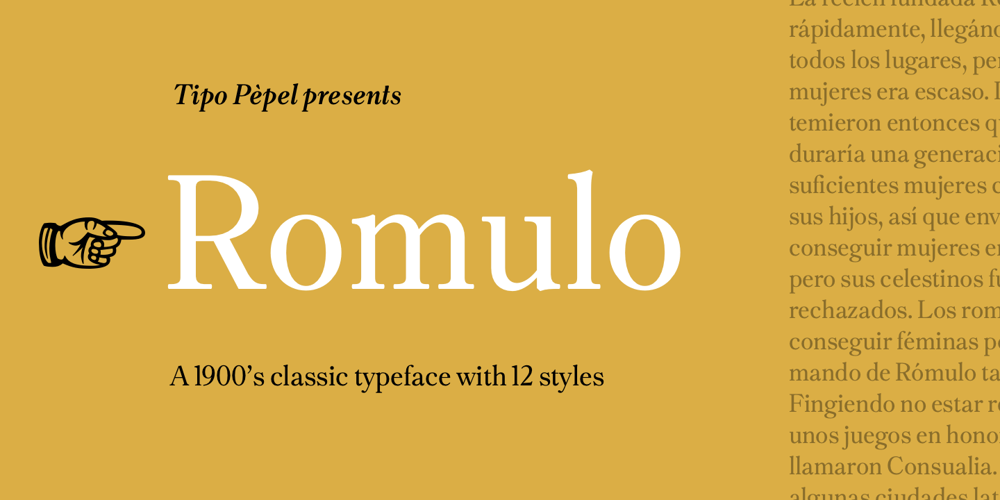
Romulo
Romulo font
Romulo Font Family was designed by Josep Patau Bellart and published by Tipo Pèpel. Romulo contains 12 styles and family package options. Romulo is a Roman typeface, inspired by the shapes and proportions of those used between the 19th and 20th centuries. Its height X is compensated to facilitate reading in blocks of text, providing readability in small bodies. With a crystalline appearance, it has a wide variety of Open Type functionalities that covers all the needs of the demanding designer.